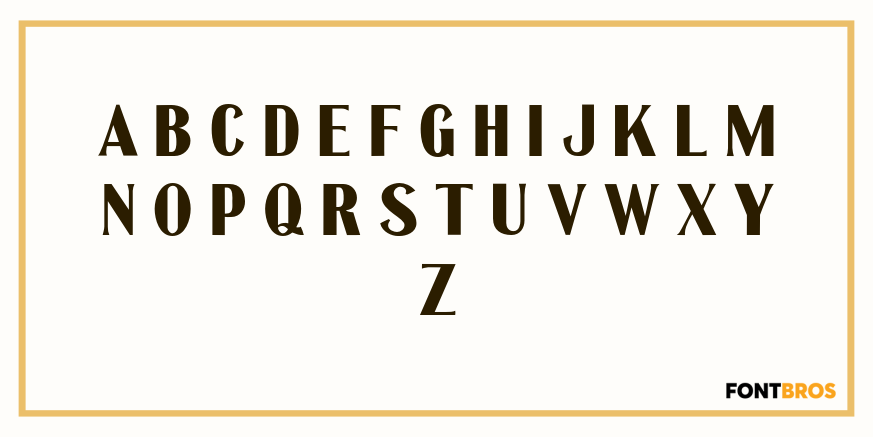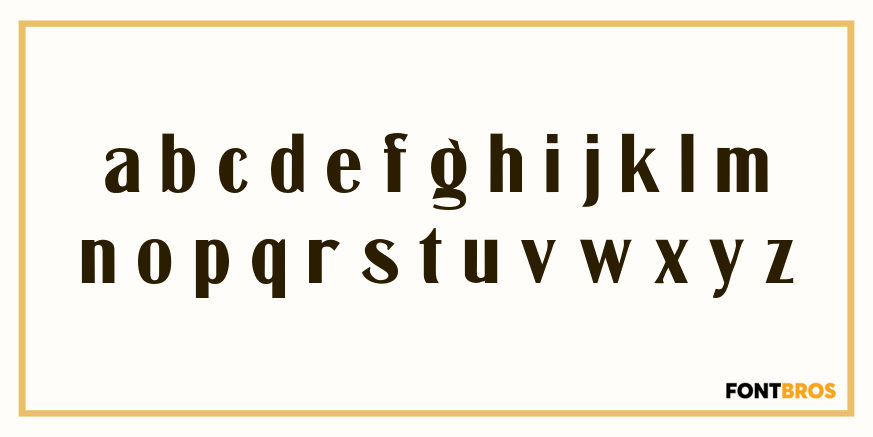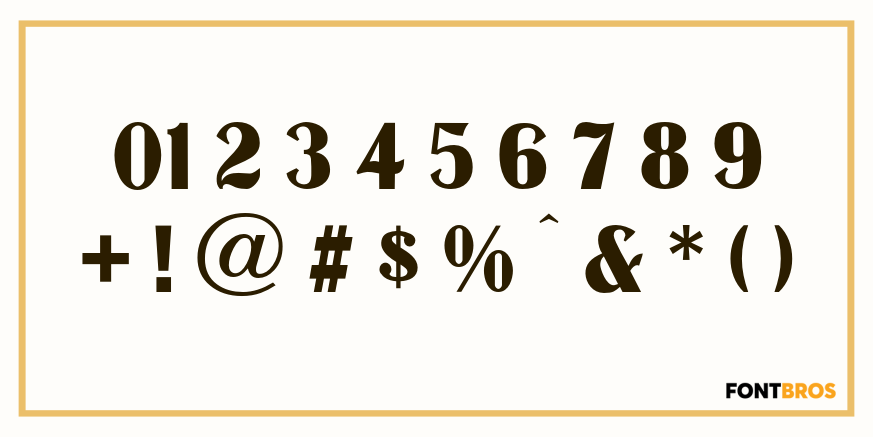
Valjean
Here is a wood type from Tubbs & Co., about 1900.
Its lack of decoration reflects the changes that were rapidly occurring in the design of printed pieces at the beginning of the 1900s. There were several similar types in metal in the first decade of the 20th century.